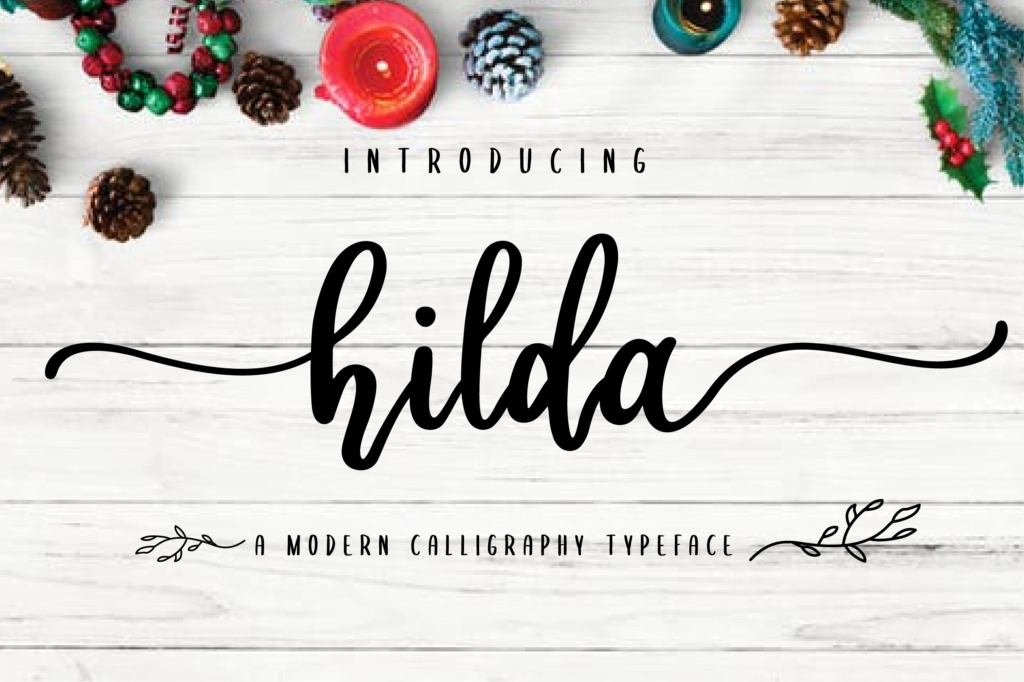
Hilda Font
Hilda , a stylish Font Style. This beautiful script font offers your personal touch to your latest art project with elegant, classy and modern look.
The hilda Script offers gorgeous typographic perfect for many different projects such as logos & branding, invitations, stationery, wedding designs, social media posts, advertisements, product packaging, product designs, labels, photography, watermarks, special events or anything that needs handwriting taste.
Hilda Modern Calligraphy Font